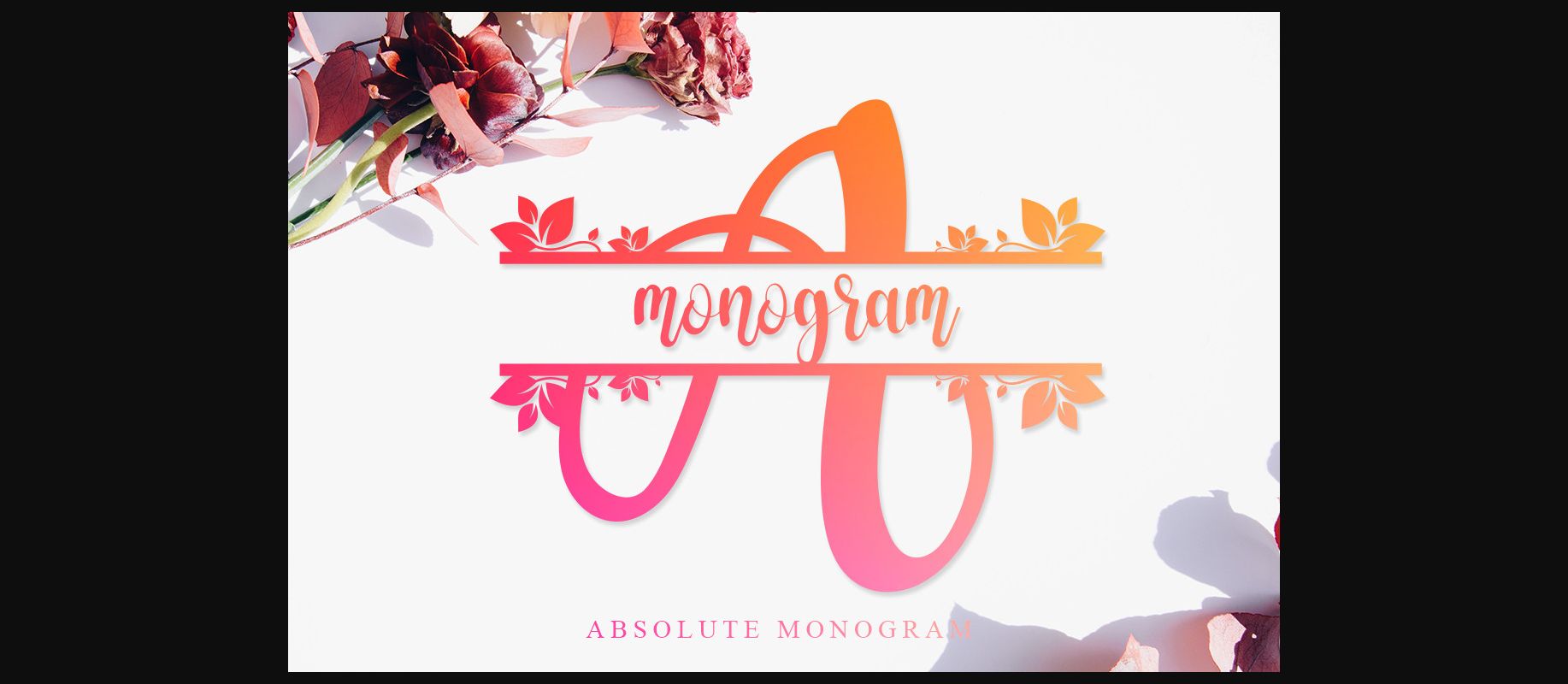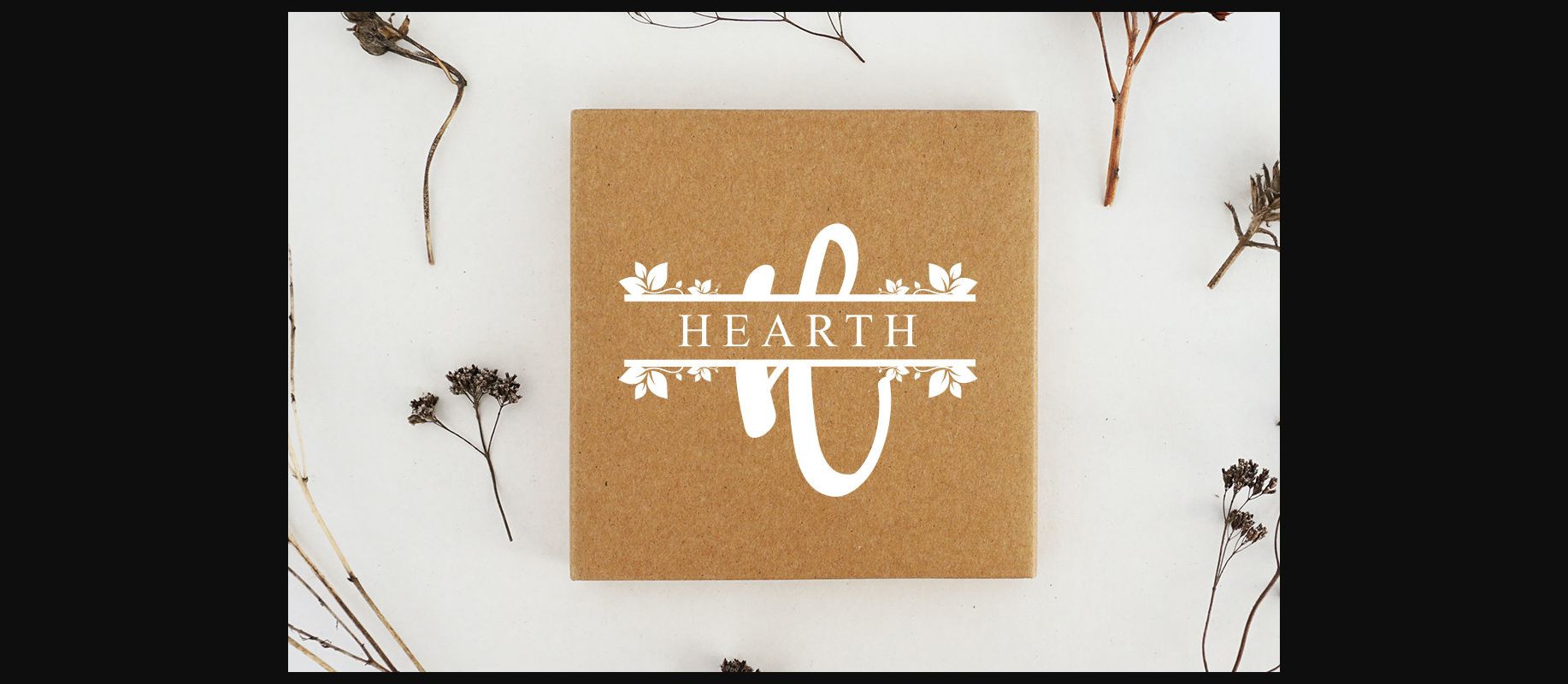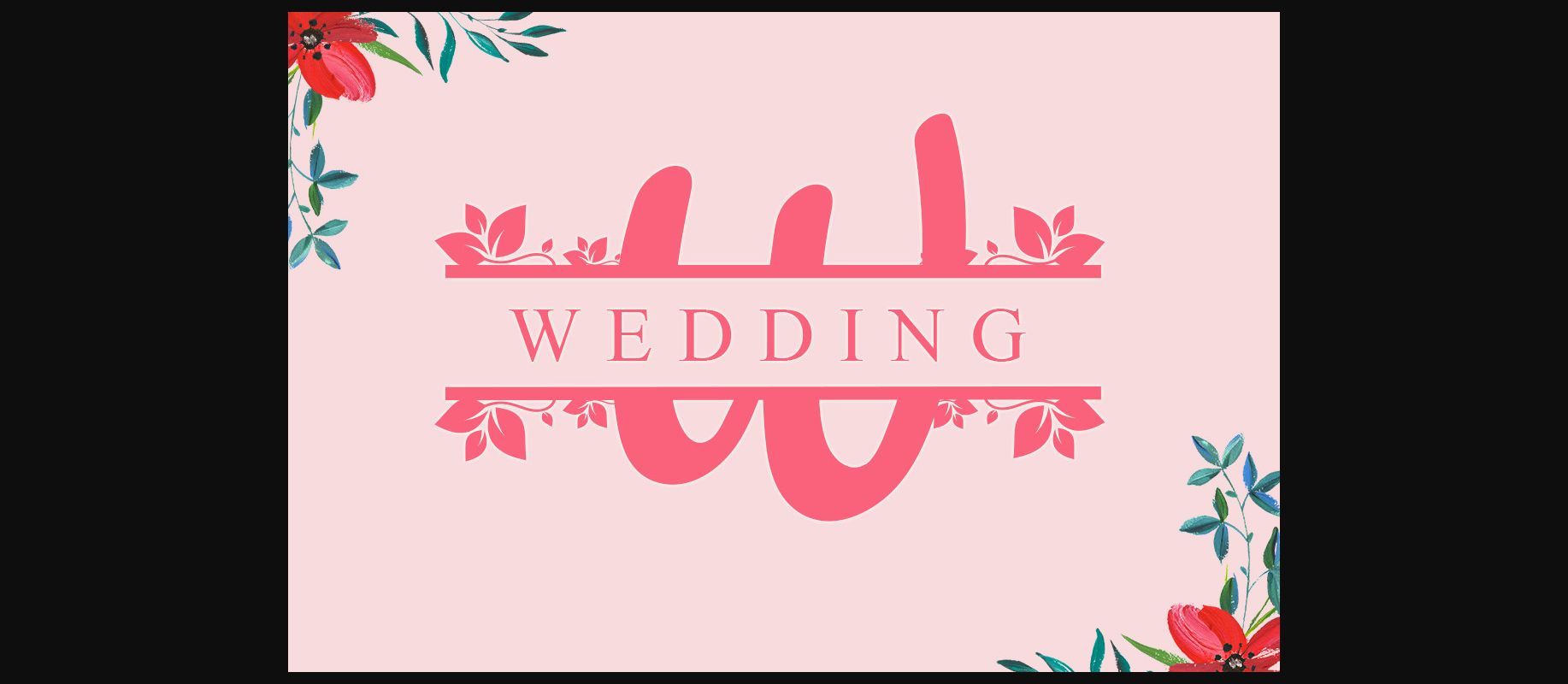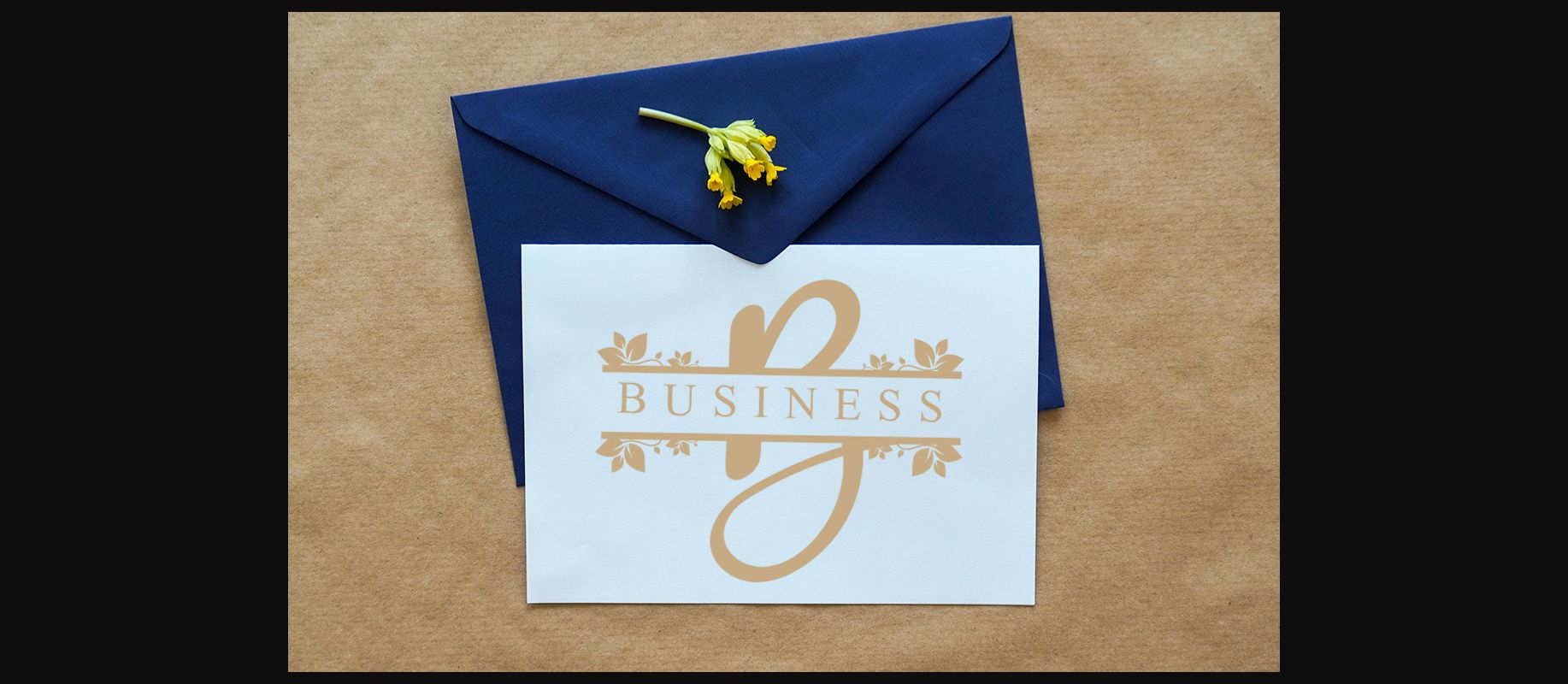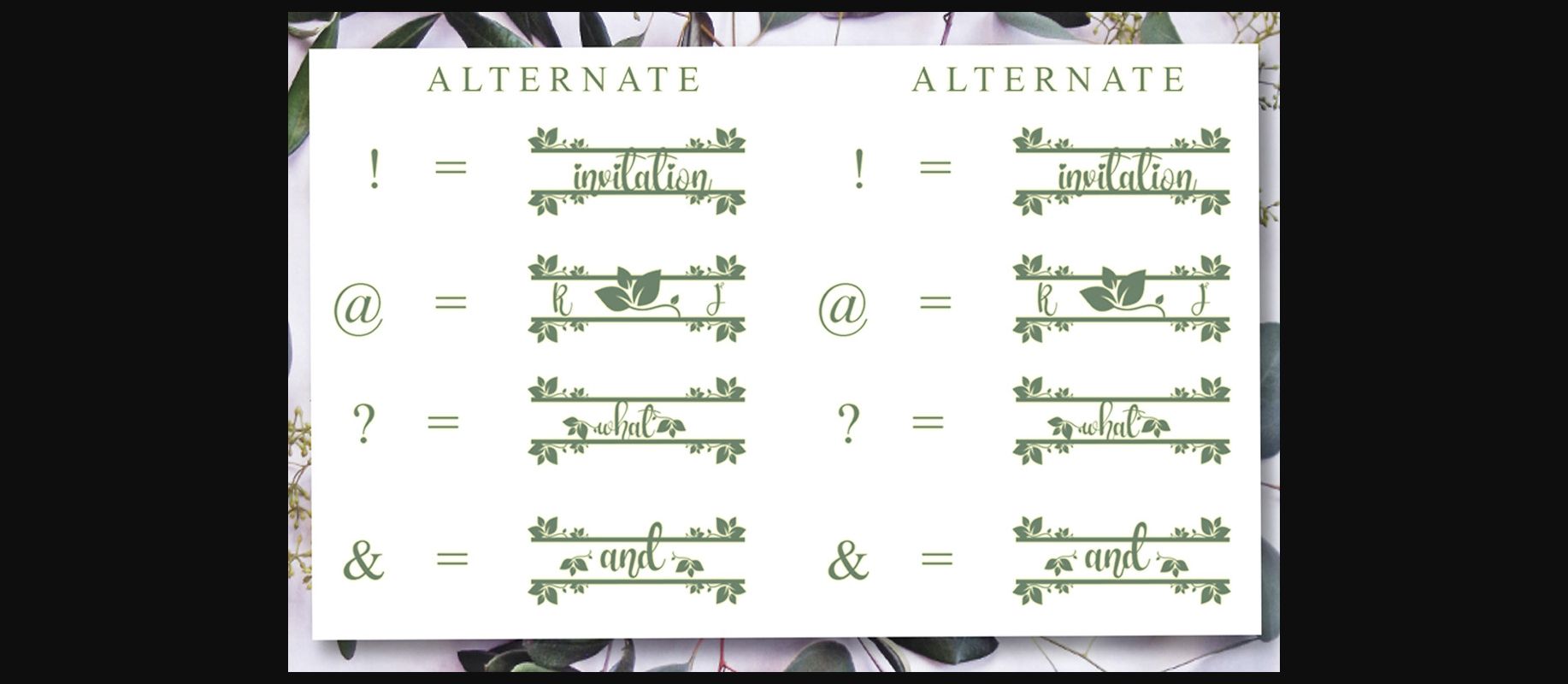
Absolute Monogram Font
About Absolute Monogram Font
Absolute Monogram is a beautiful and highly detailed decorative font. Fall for its ravishing style and use it to create gorgeous wedding invitations, beautiful stationary art, eye-catching social media posts, and much more!